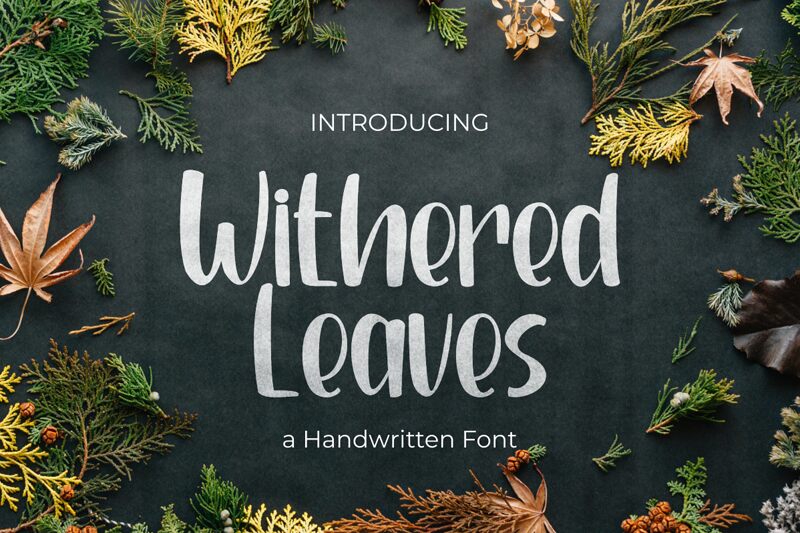
Withered Leaves
Withered Leaves font by Rvandtype is a free brush font with a casual, handwritten aesthetic. Organic flow and the relaxed mood set the tone of this typeface which was made with the help of Procreate. The overall ordinary and natural appearance it offers makes it perfect for creating lots of personal design projects.
Enjoy Withered Leaves in greeting cards, invitation cards, posters, social media posts, branding packages, stickers, billboards and magazine covers. Additional use cases include logo design and packaging related projects.